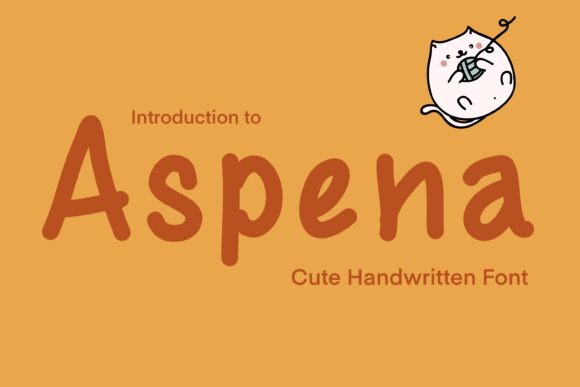
In a world where words dance and emotions ignite, there's a font that captures the essence of heartfelt expression - Aspena Font. This elegant script, crafted with meticulous care, beckons you to embrace the art of written communication.
Journey into a realm of boundless creativity, where the gentle curves and lively strokes of Aspena Font intertwine, inviting you to pour your heart onto the page. Its whimsical charm captivates the imagination, drawing readers into the depths of your storytelling. Whether you're weaving tales of love, painting vivid landscapes, or immortalizing precious memories, Aspena Font becomes your trusty companion, transforming your words into an enchanting symphony.
Experience the sheer joy of writing as your thoughts flow effortlessly, guided by the graceful lines of Aspena Font. Its versatility knows no bounds, adapting seamlessly to a kaleidoscope of creative endeavors. Whether you're crafting heartfelt letters, designing captivating invitations, or adding a touch of whimsy to your social media posts, Aspena Font elevates your words, making them resonate with an emotional depth that leaves an indelible mark.
Immerse yourself in the boundless possibilities that await with Aspena Font. Its playful nature lends itself effortlessly to personal branding, adding a touch of individuality to your online presence. Unleash your creativity and craft stunning logos, eye-catching website designs, and social media graphics that command attention and leave a lasting impression.
Aspena Font is more than just a collection of characters; it's a gateway to a world where imagination knows no limits. Let your words take flight, carried by the enchanting allure of Aspena Font. Transform your creative visions into tangible masterpieces, captivating hearts and igniting imaginations with every stroke of your keyboard.